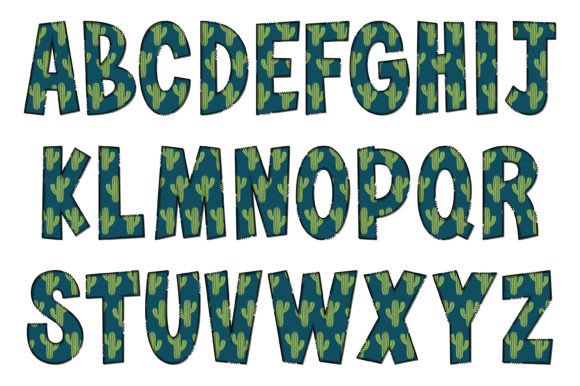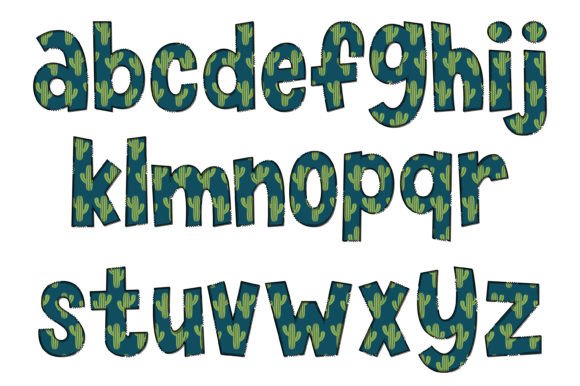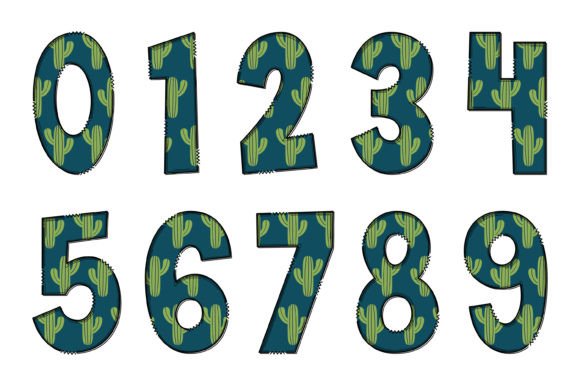
Meet Your New Desert BFF: Cactus Font
Have you ever been working on a design project, and you just can’t seem to find the right font to capture the essence of your creative vision? Maybe you’re working on a desert-themed poster, or designing a logo for a cactus-inspired brand. Whatever it is, I’m sure you’ve experienced that frustrating moment when nothing seems to fit quite right.
That’s where Cactus Font comes in – a lively and playful color font that’s inspired by the desert landscape. With its adorable cactus-shaped characters and vibrant green shades, this font brings a touch of whimsy to your designs. Perfect for nature-themed projects, desert-inspired artwork, or any design that needs a cute and fun twist, Cactus Font is a valuable addition to any designer’s toolkit.
Cactus Font Key Features
- Font Family: Cactus is a unique, hand-drawn sans-serif font family designed for creative and modern designs.
- Character Set: The font family includes a wide range of characters, including Latin, Cyrillic, and Greek alphabets, as well as punctuation and special characters.
- Unique Characteristics: Cactus Font features a distinctive, cactus-inspired design with bold lines and geometric shapes, making it perfect for adding a touch of whimsy to designs.
Cactus Font Review
As a designer, I recently had the chance to work with the Cactus Font, and I must say it’s an interesting choice. Here’s my honest review:
- The font’s unique shape and character set make it perfect for creative and whimsical projects.
- The cactus-inspired design adds a fun and quirky touch to any design.
- The font’s legibility is decent, making it suitable for body text and titles.
- The font’s irregular shape can make it difficult to read at small sizes.
- The character set is not comprehensive, which may limit its use in certain projects.
- The font may not be suitable for formal or professional designs, due to its playful nature.
The Cactus Font is a fun and unique choice for designers looking to add a playful touch to their projects. However, its limitations may make it less suitable for more formal or complex designs. Overall, I’d recommend it for creative projects, but use it with caution and consider its limitations before making a final decision.
The Cactus Font is perfect for creative projects, such as:
Remember to experiment with different font sizes, colors, and styles to get the most out of the Cactus Font.
Alternatives to Cactus Font for Designers
Great Vibes is a modern, cursive font that’s perfect for adding a touch of elegance and sophistication to your designs. It’s ideal for use in titles, headings, and quotes where you want to convey a sense of warmth and personality. Great Vibes has a more refined and polished look compared to Cactus Font, making it a great choice for formal and professional projects.
Carolyna Pro is a beautiful, handwritten font that’s perfect for adding a touch of whimsy and playfulness to your designs. It’s ideal for use in titles, headings, and body text where you want to convey a sense of friendliness and approachability. Carolyna Pro has a more fluid and organic look compared to Cactus Font, making it a great choice for informal and creative projects.